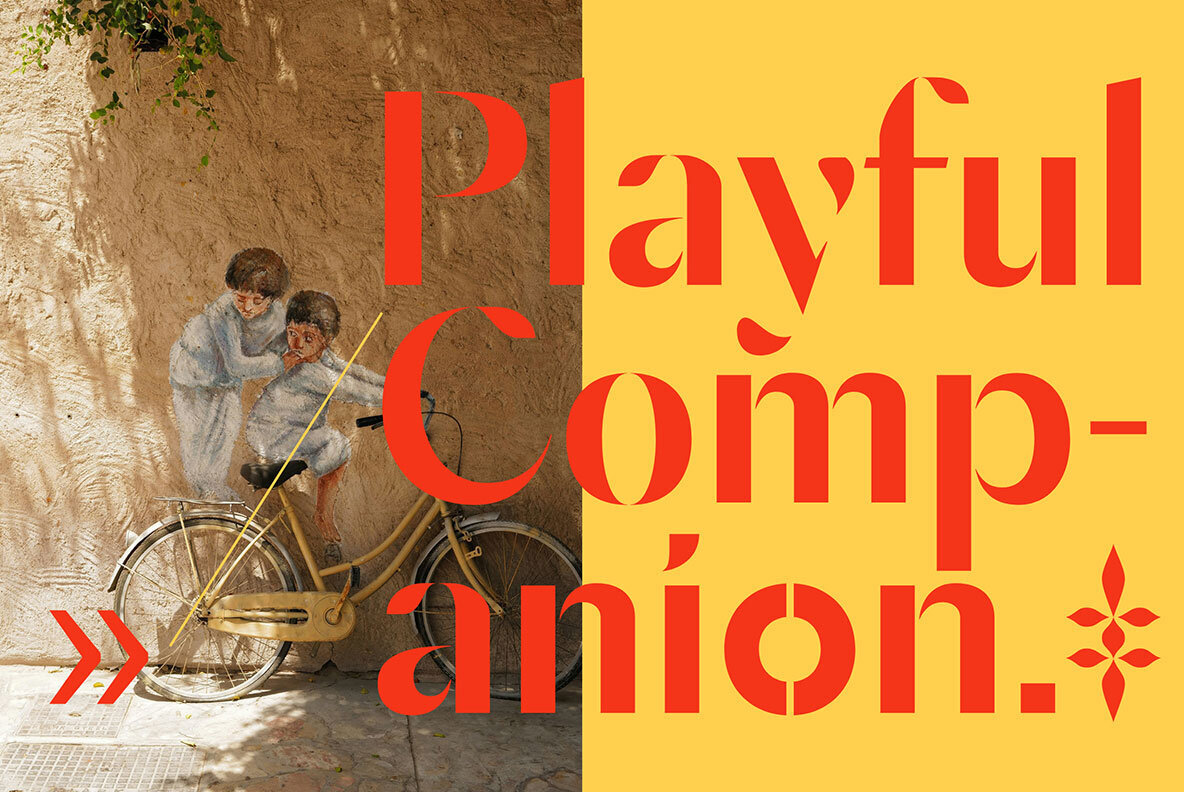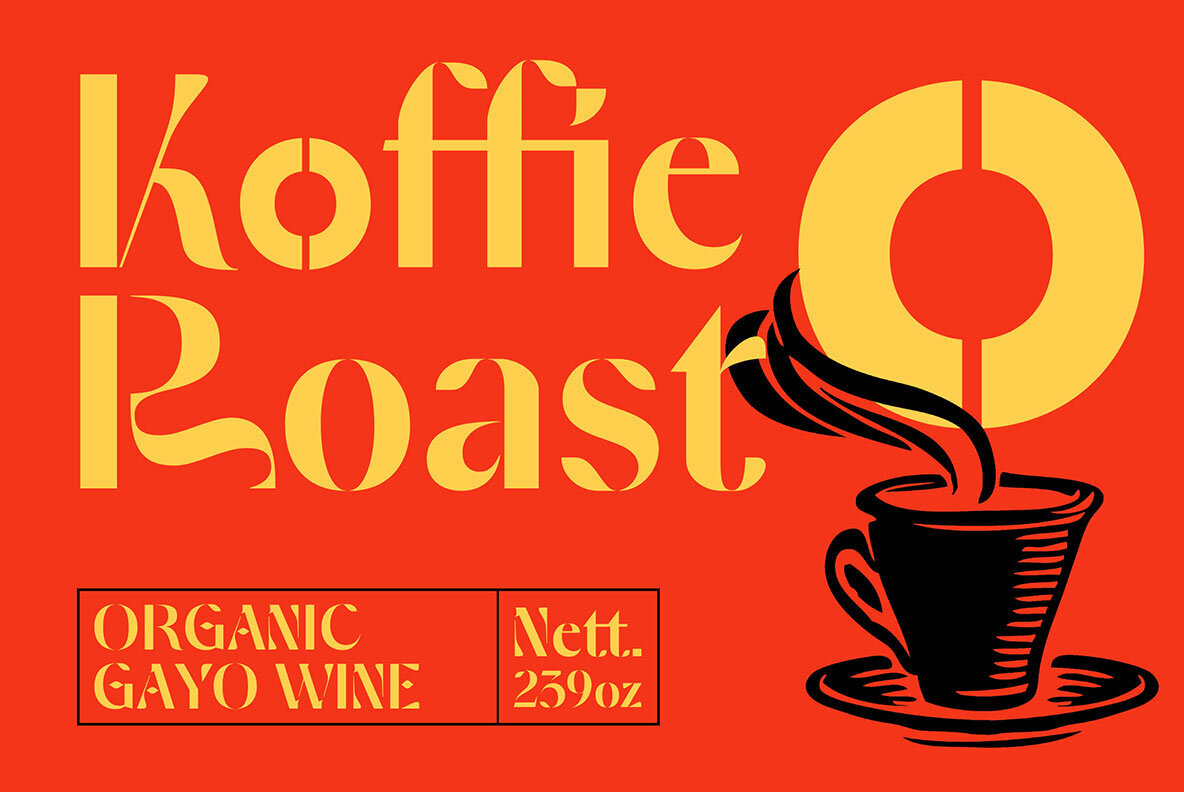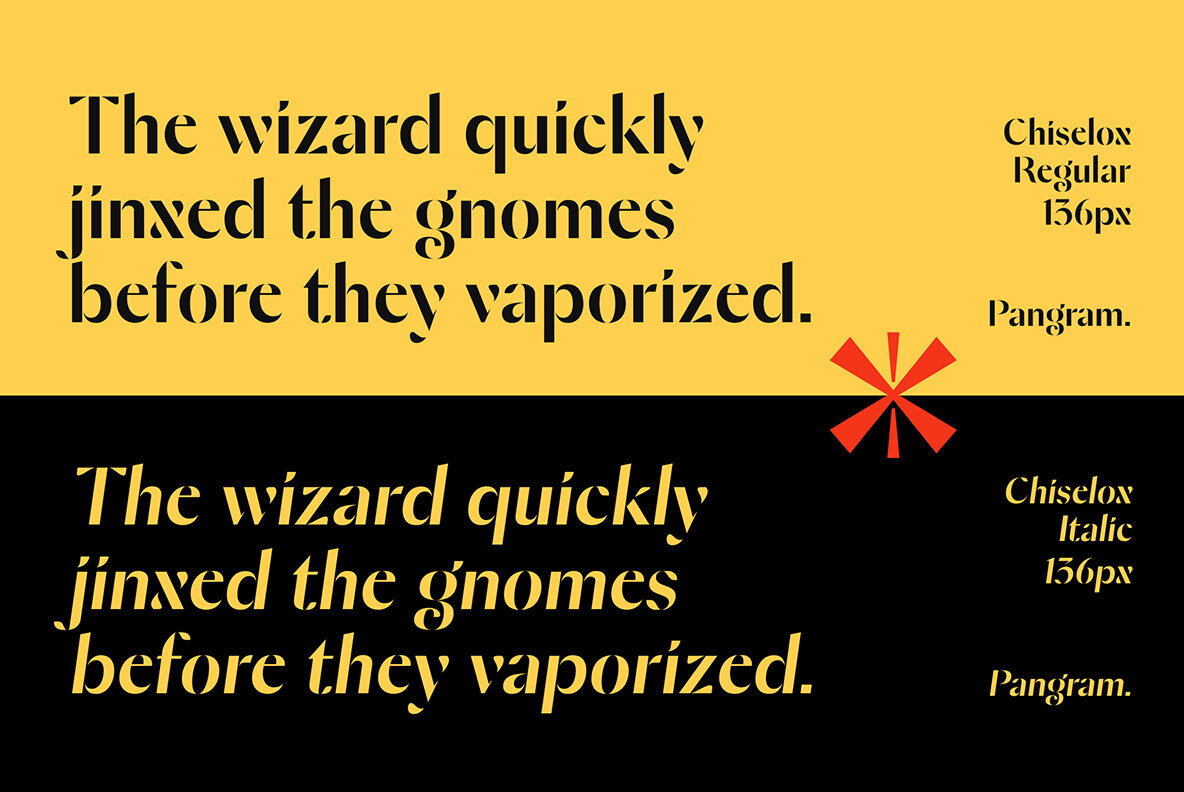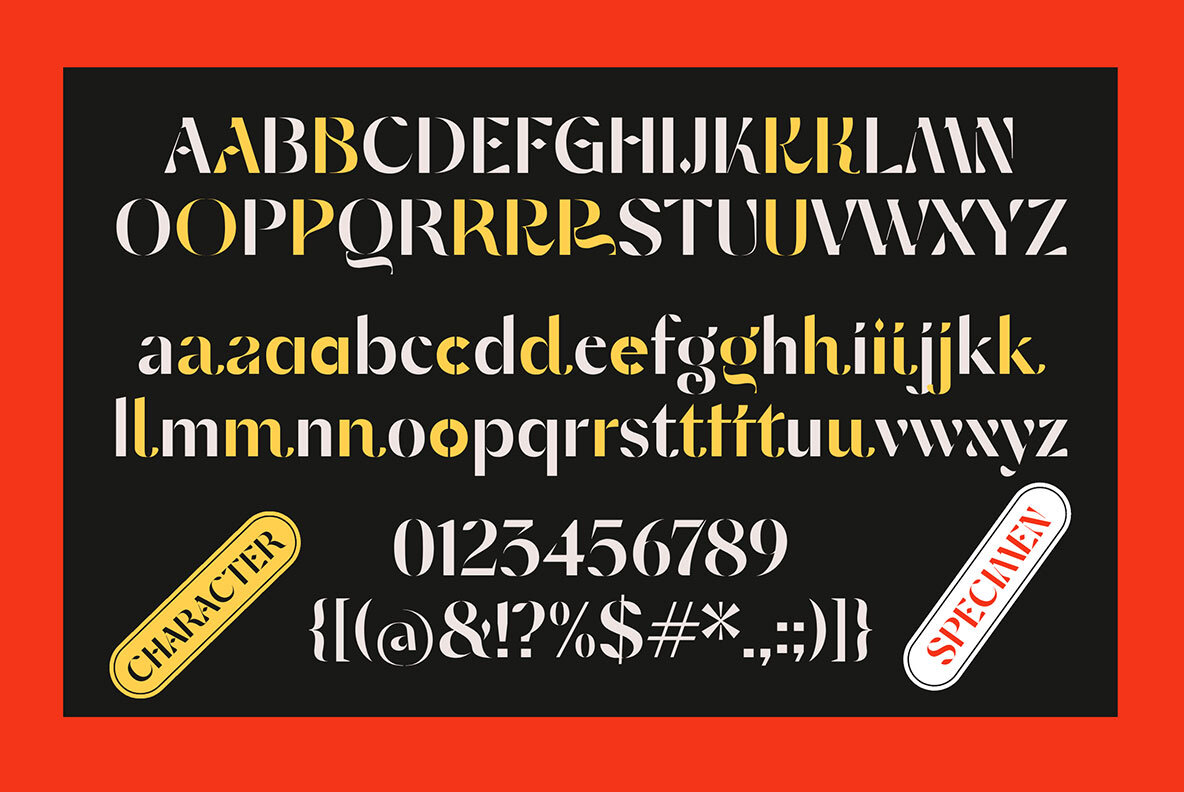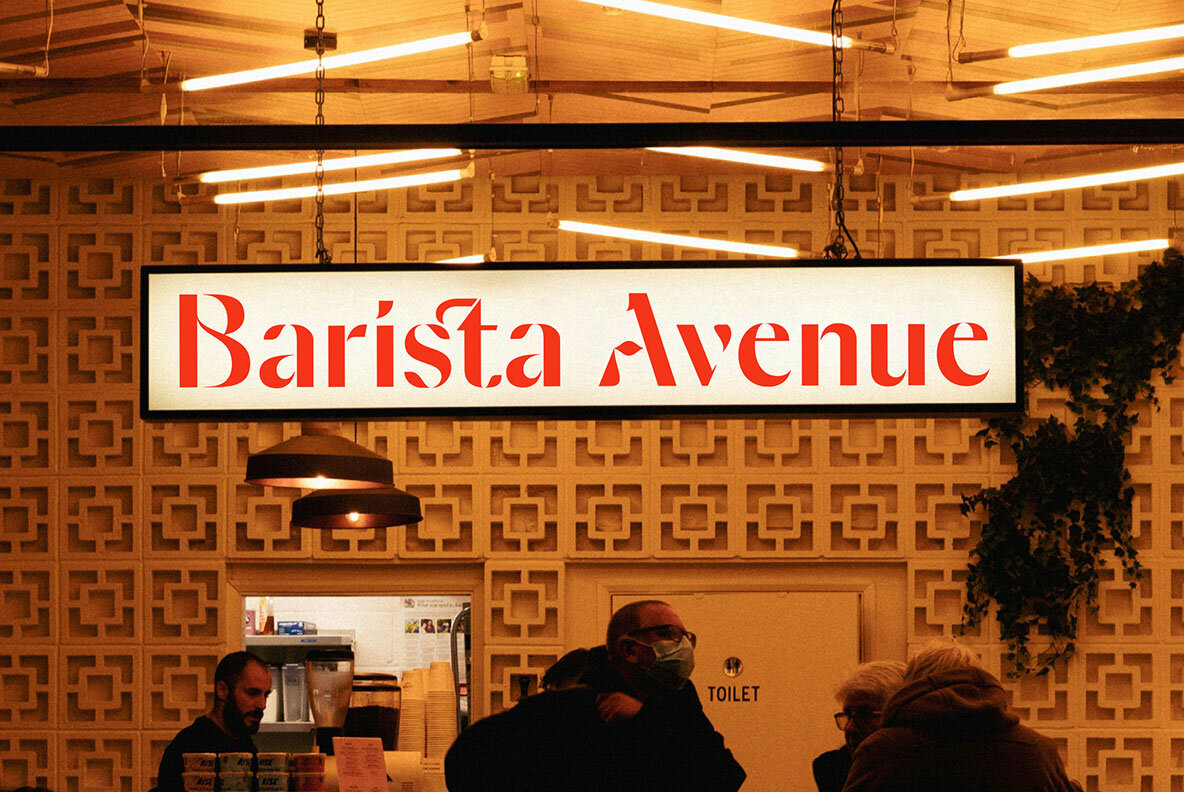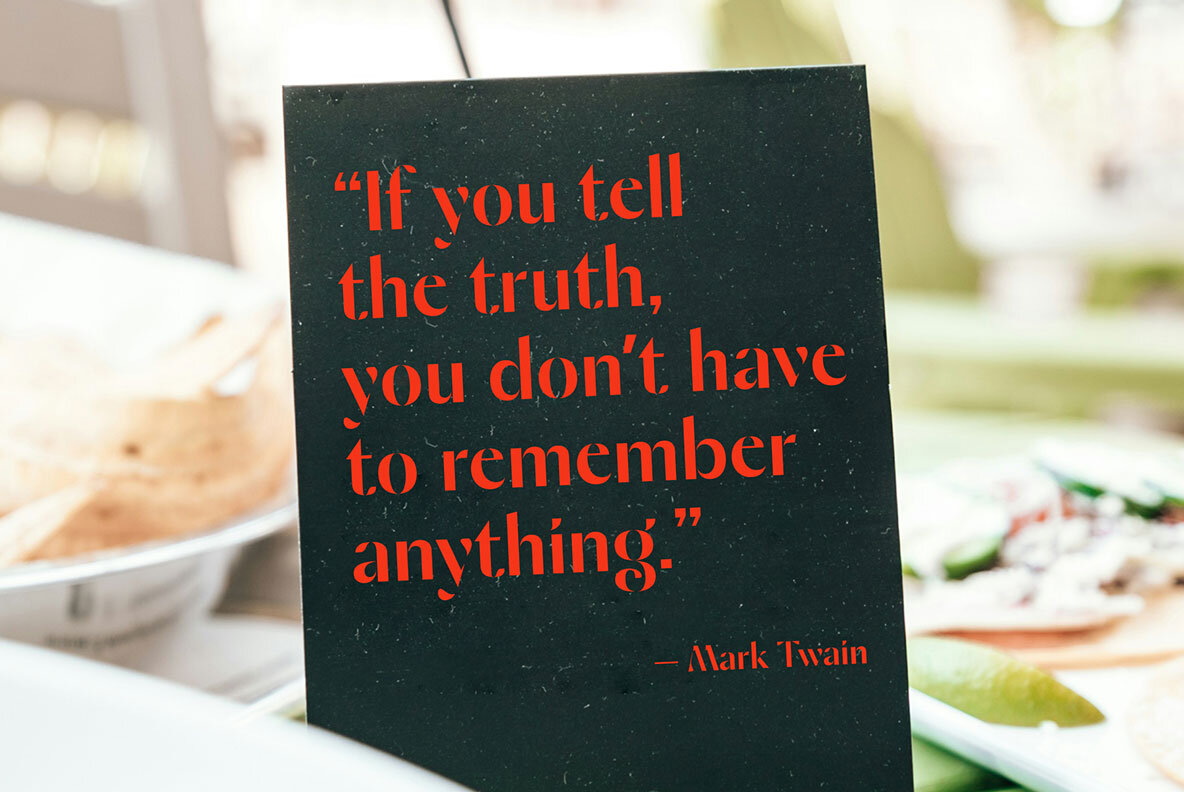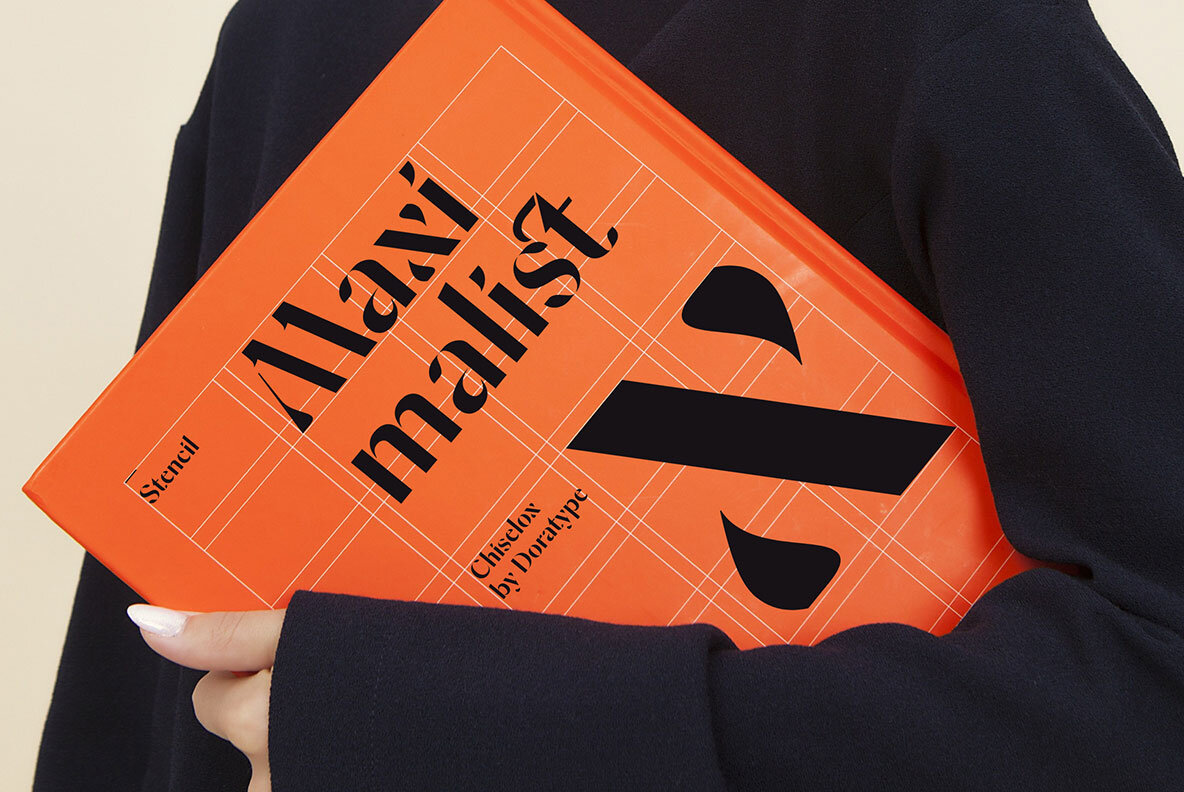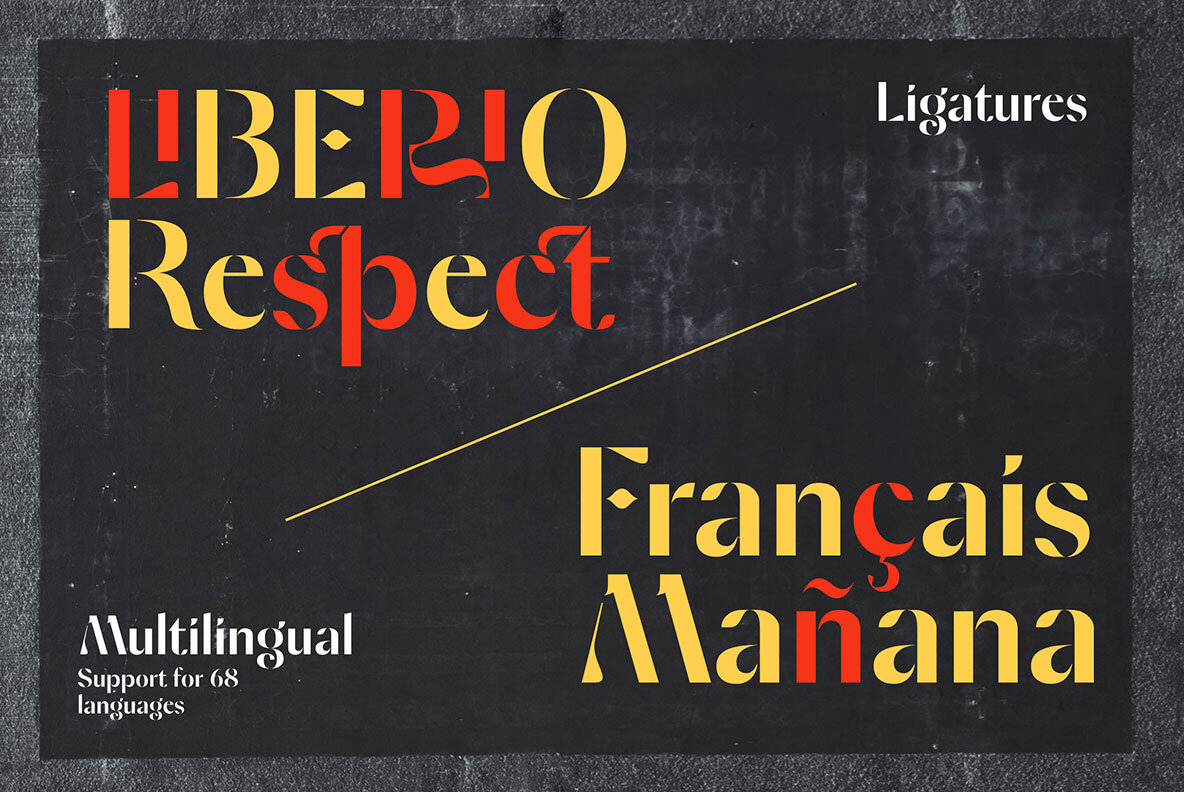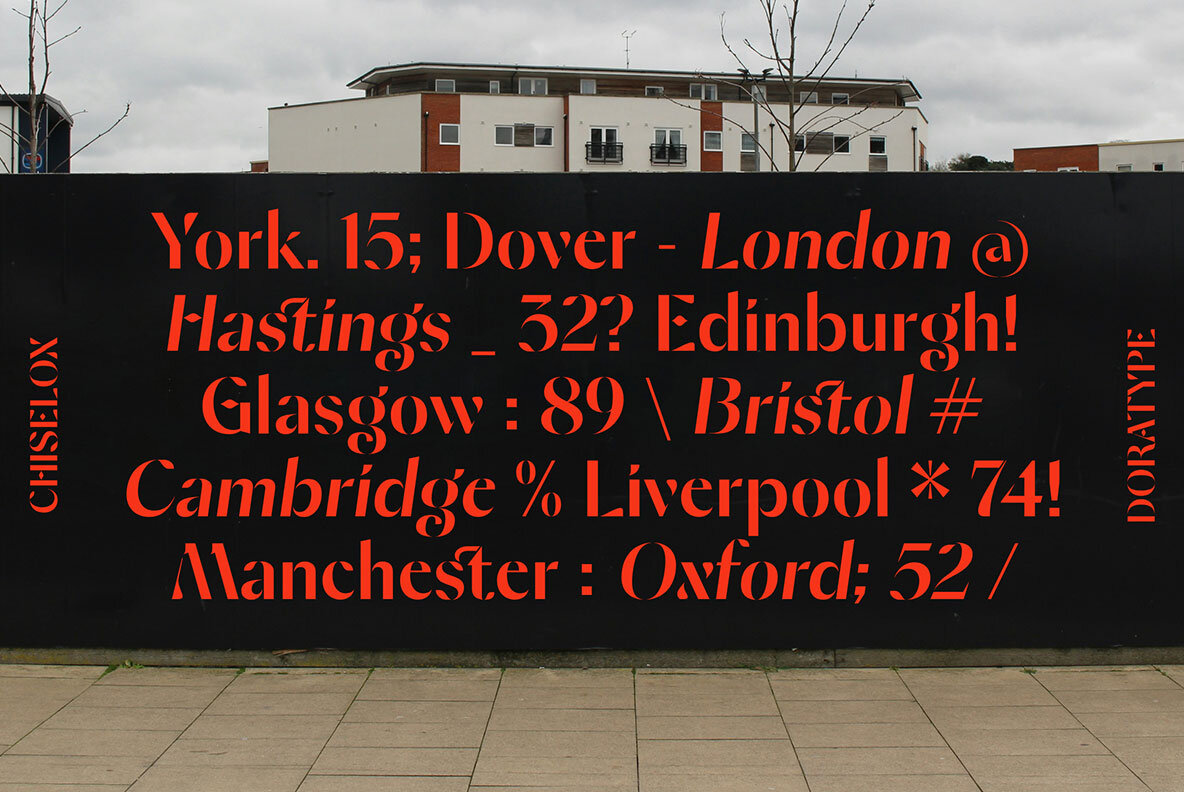
Chyselox Font
Chiselox is a classic stancil sans-serif typeface with a friendly touch that feels very modern. Known for its subtle details making it versatile for a variety of uses across the brand. Features: We highly recommend using a program that supports OpenType features and Glyphs panels like Adobe apps and Corel Draw, so you can see and access all Glyph variations.